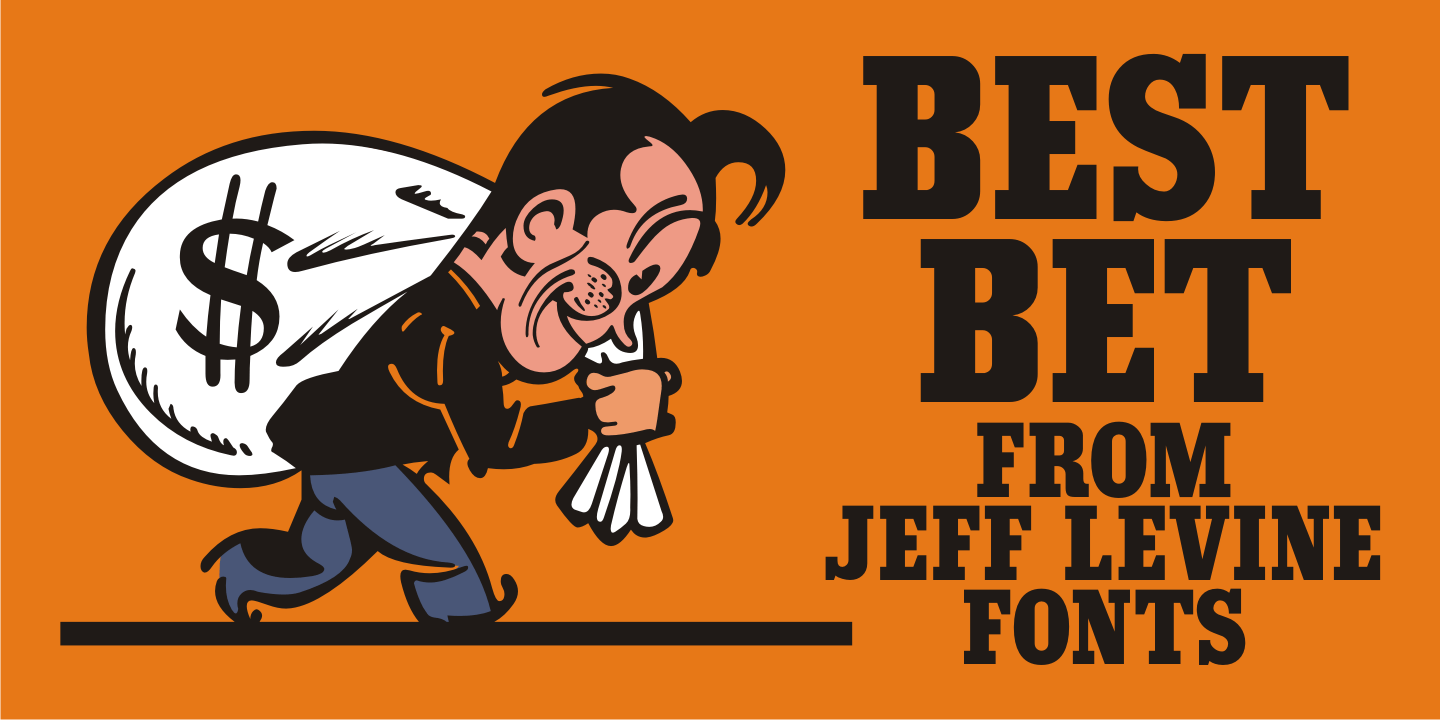
Best Bet
Best Bet JNL is a hybrid approach in reinterpreting the classic display font Beton. Using examples of the condensed version found on old sheet music, redesigning a few additional characters and melding them with slightly condensed versions of numbers from the standard weight, Best Bet JNL offers an interesting new version to an old favorite.
Best Bet JNL Regular by Jeff Levine Fonts